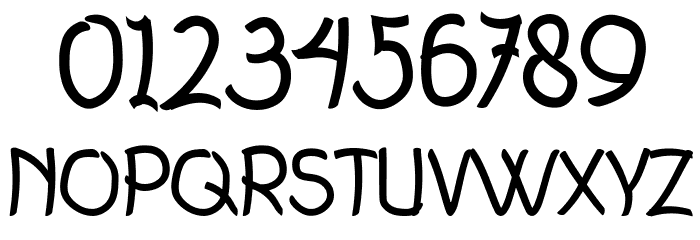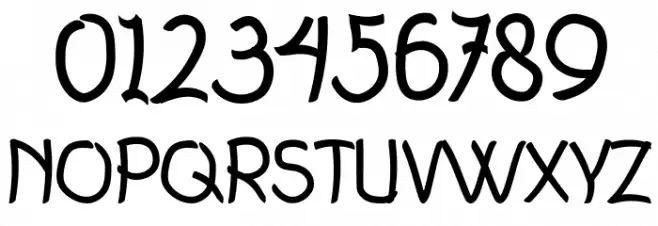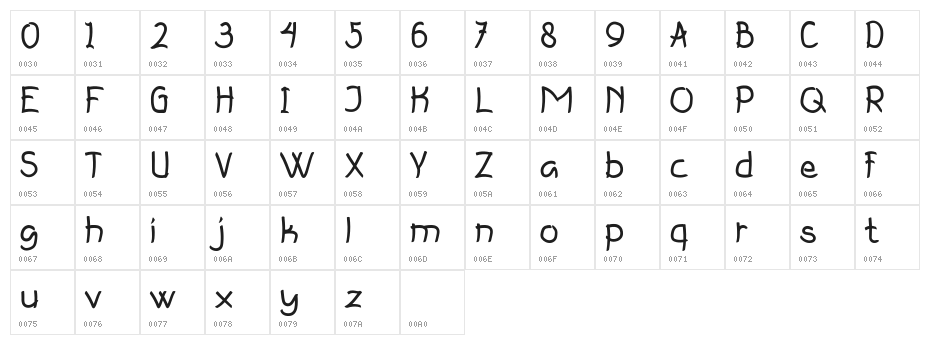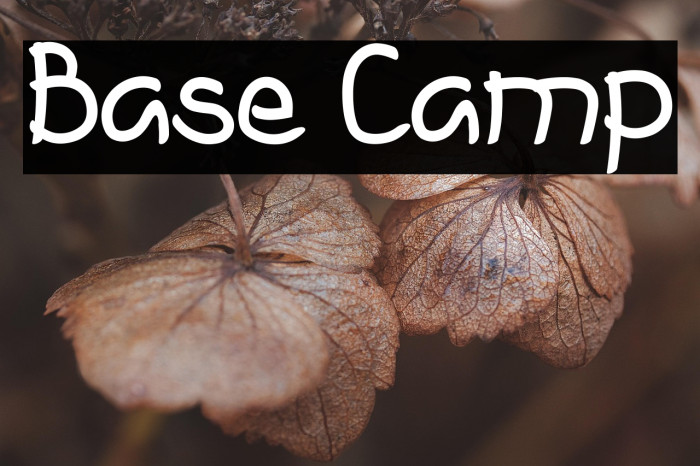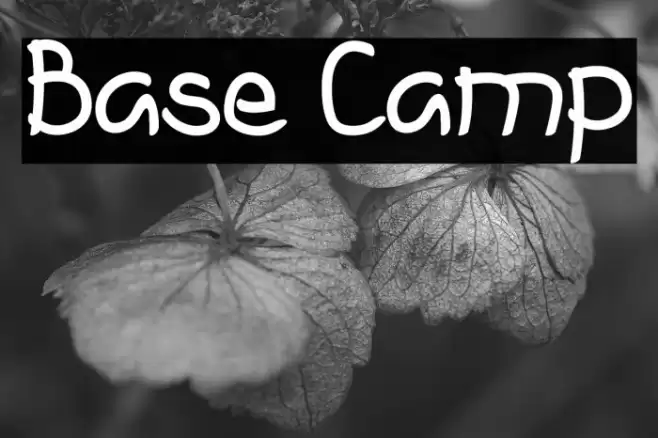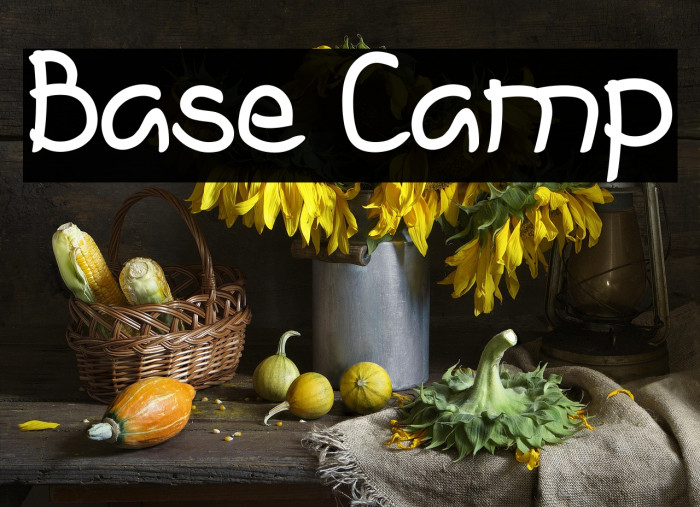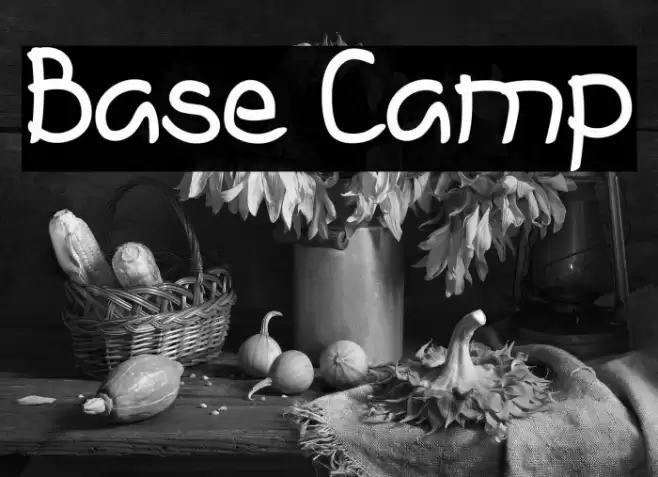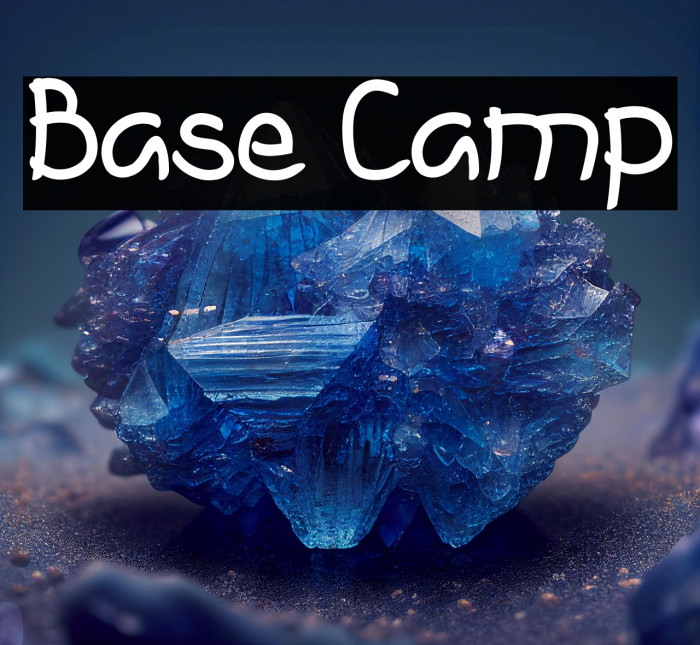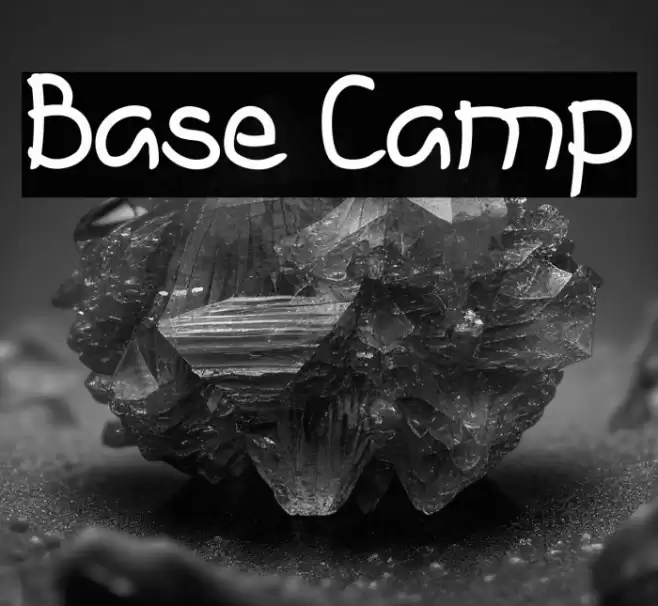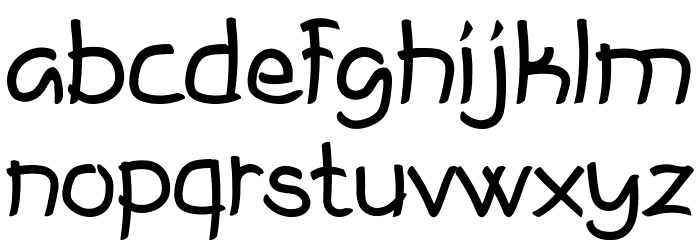
Base Camp Font
Base Camp Description
This font features a playful and informal style with a handwritten appearance. The characters are slightly irregular, giving it a casual and approachable feel. The strokes are consistent in thickness, providing a uniform look across all letters and numbers. The uppercase and lowercase letters maintain a cohesive design, with rounded edges and a slight tilt that adds to the whimsical nature of the font. The numerals are clear and easy to read, matching the overall style of the alphabet. Special characters are included, maintaining the same playful aesthetic. This font is ideal for projects that require a friendly and informal touch.